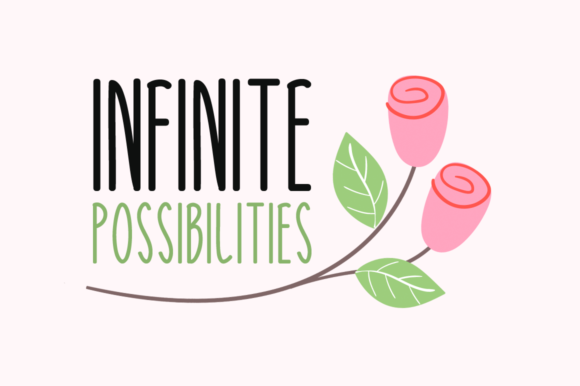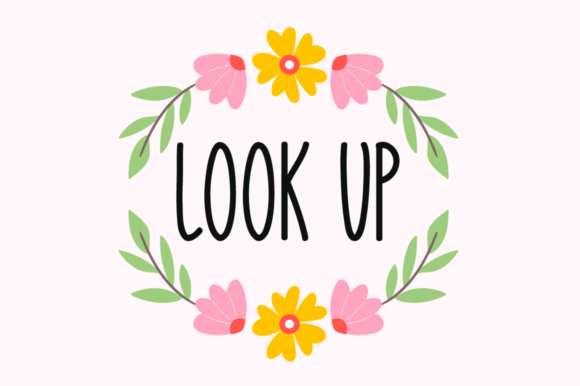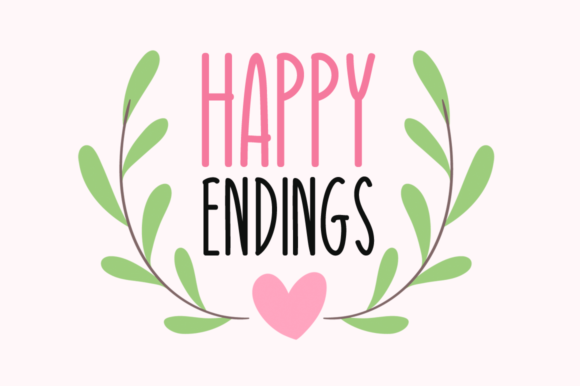
Introduction to Look Within Font
Look Within is a tall and thin handwritten font.
Add this font to your creative ideas and notice how it will make them stand out .
Key Features of Look Within Font
Why Choose Look Within Font?
Look Within Font offers exceptional quality and versatility, making it a valuable addition to your design toolkit. Whether you’re creating for personal projects or commercial use, Look Within Font delivers professional results.